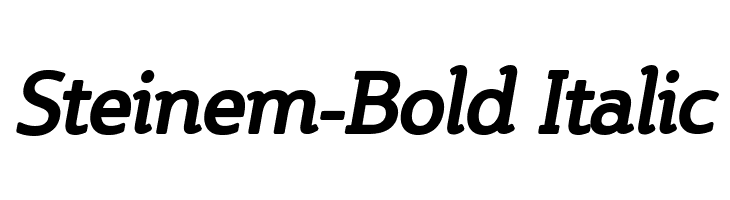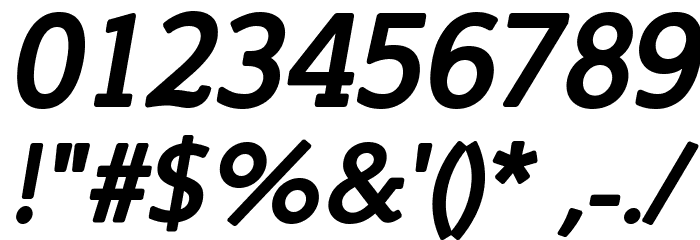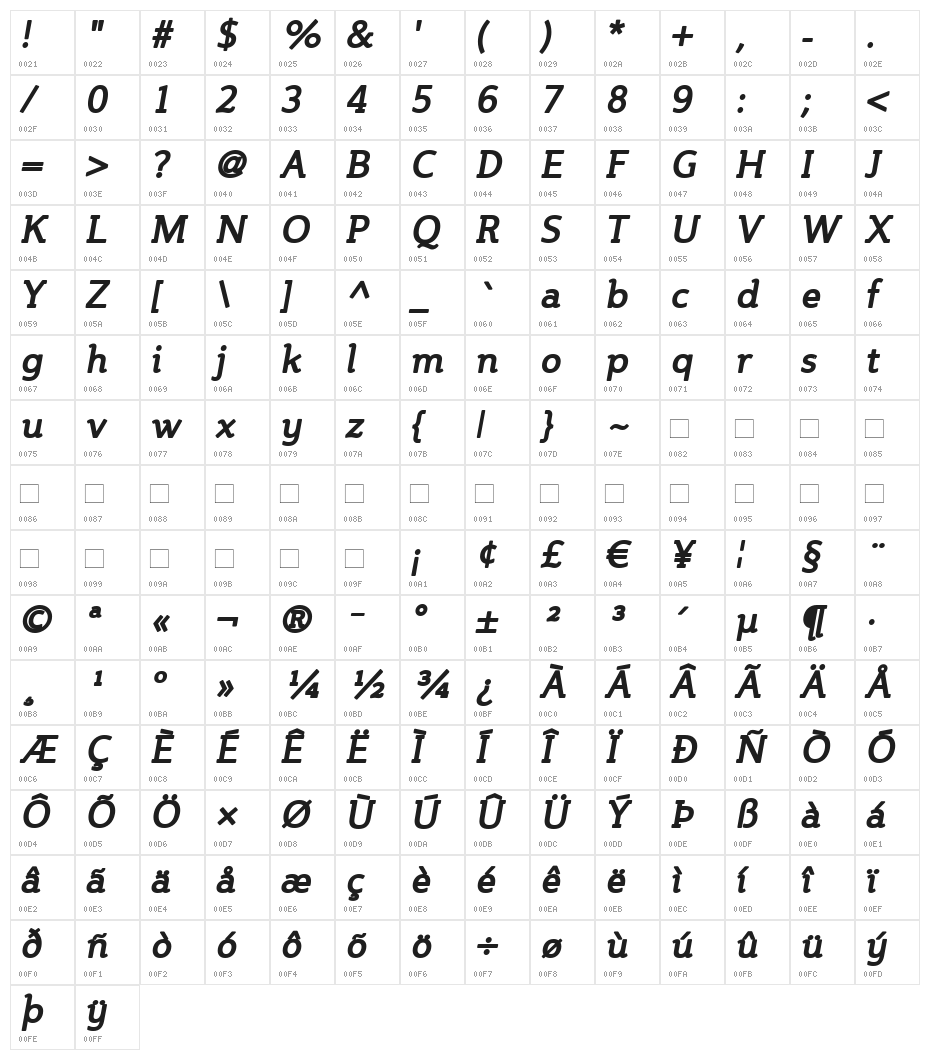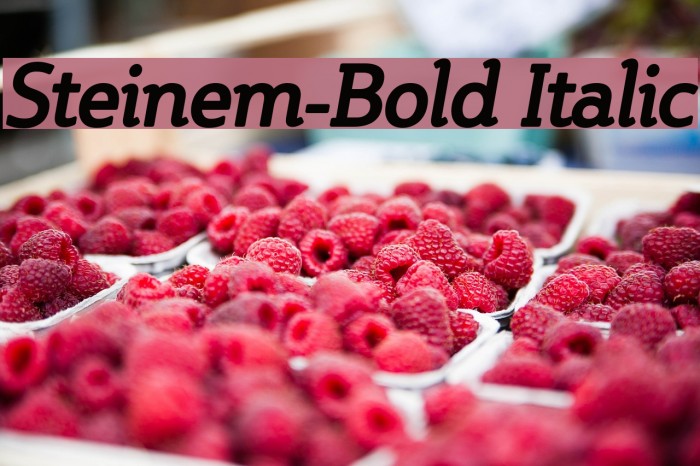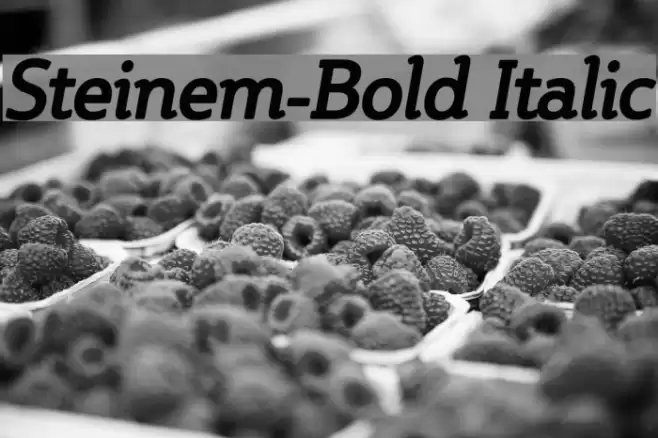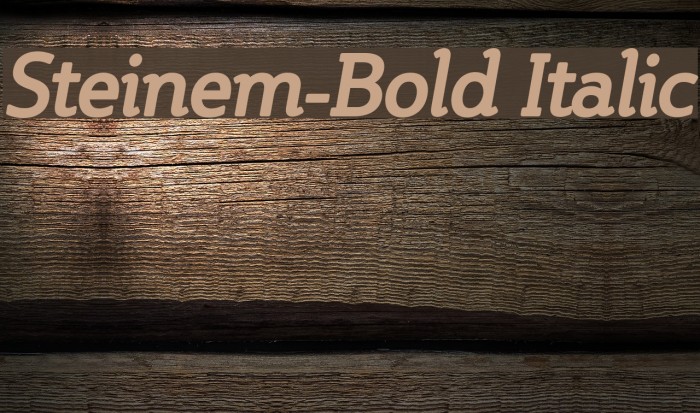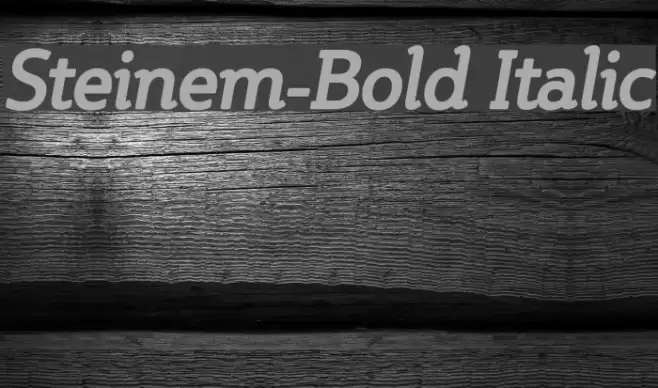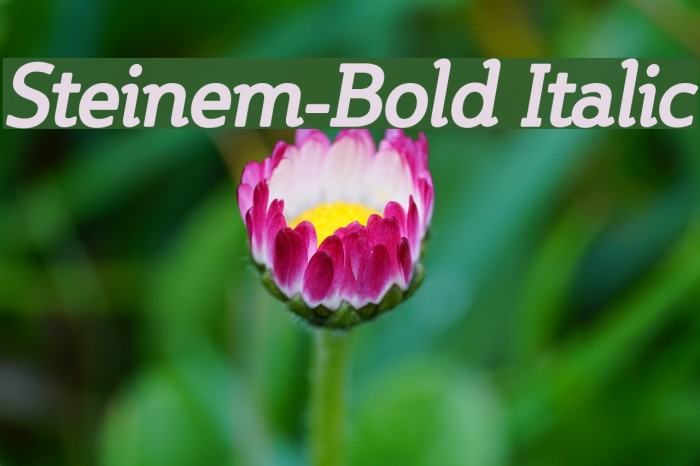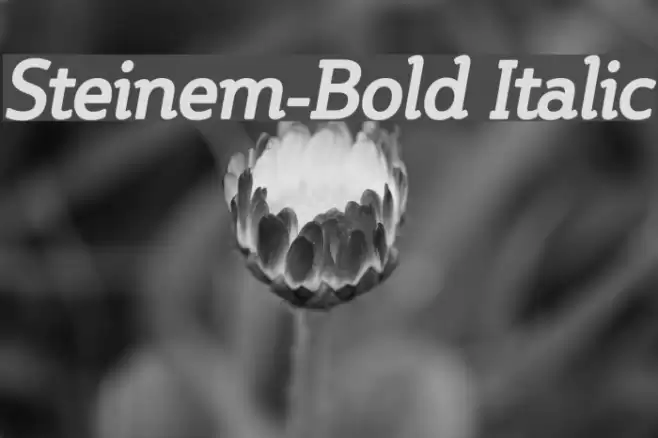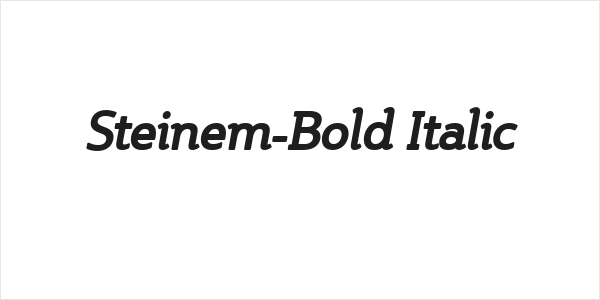
Steinem-Bold Italic Font
Steinem-Bold Italic Description
This font features a bold and italicized style, combining strong, thick strokes with a forward-slanting posture. The characters are well-defined with a consistent weight throughout, providing a sense of stability and emphasis. The uppercase letters are slightly taller than the lowercase, maintaining a traditional structure, while the lowercase letters exhibit a smooth, flowing design. The numerals are clear and robust, matching the overall boldness of the font. Special characters are included, maintaining the same bold and italicized characteristics, ensuring versatility in various text compositions.
| Proposed Projects | Ideal for branding, headlines, posters, and any design requiring a strong, dynamic presence. |